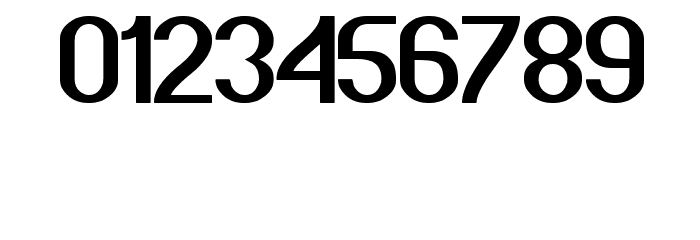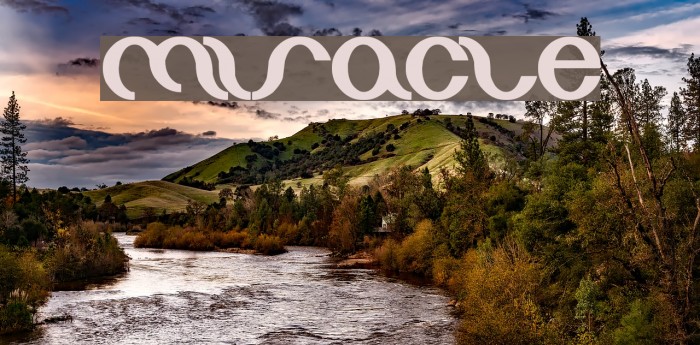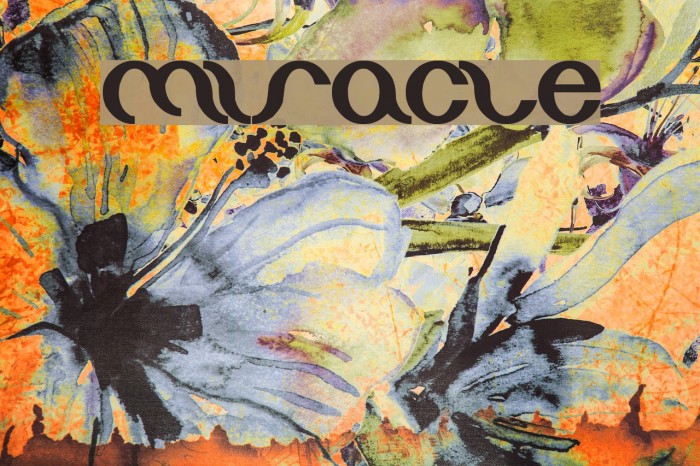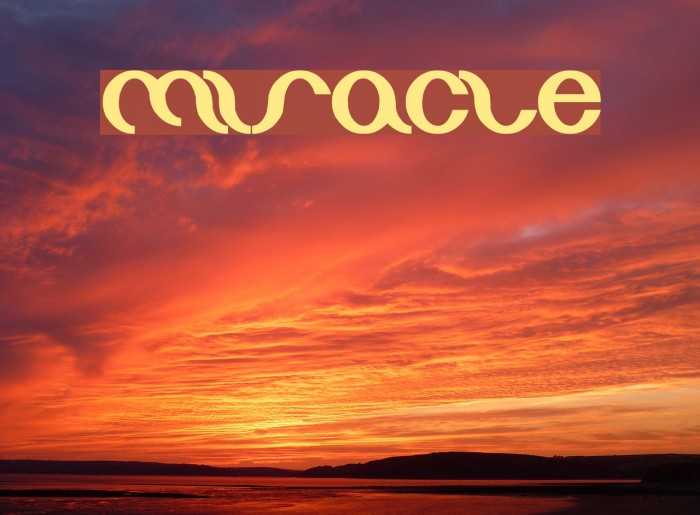
miracle Font
This font exhibits a unique and modern design with a decorative flair. The characters are bold and feature a distinctive curvature that adds a playful yet sophisticated touch. The uppercase letters are particularly striking, with each character incorporating a consistent looped element that creates a sense of unity across the alphabet. The lowercase letters maintain this theme, offering a harmonious blend of style and readability. The numerals are clear and bold, ensuring easy recognition. This font's special characters, including symbols like $, ?, and &, are designed with the same attention to detail, making them stand out while remaining cohesive with the overall style.
A bold, modern decorative font with unique looped elements.
- Proposed Projects: Ideal for branding, logo design, and creative headlines that require a modern and artistic touch.
- Use Case: Logos, Headlines, Branding